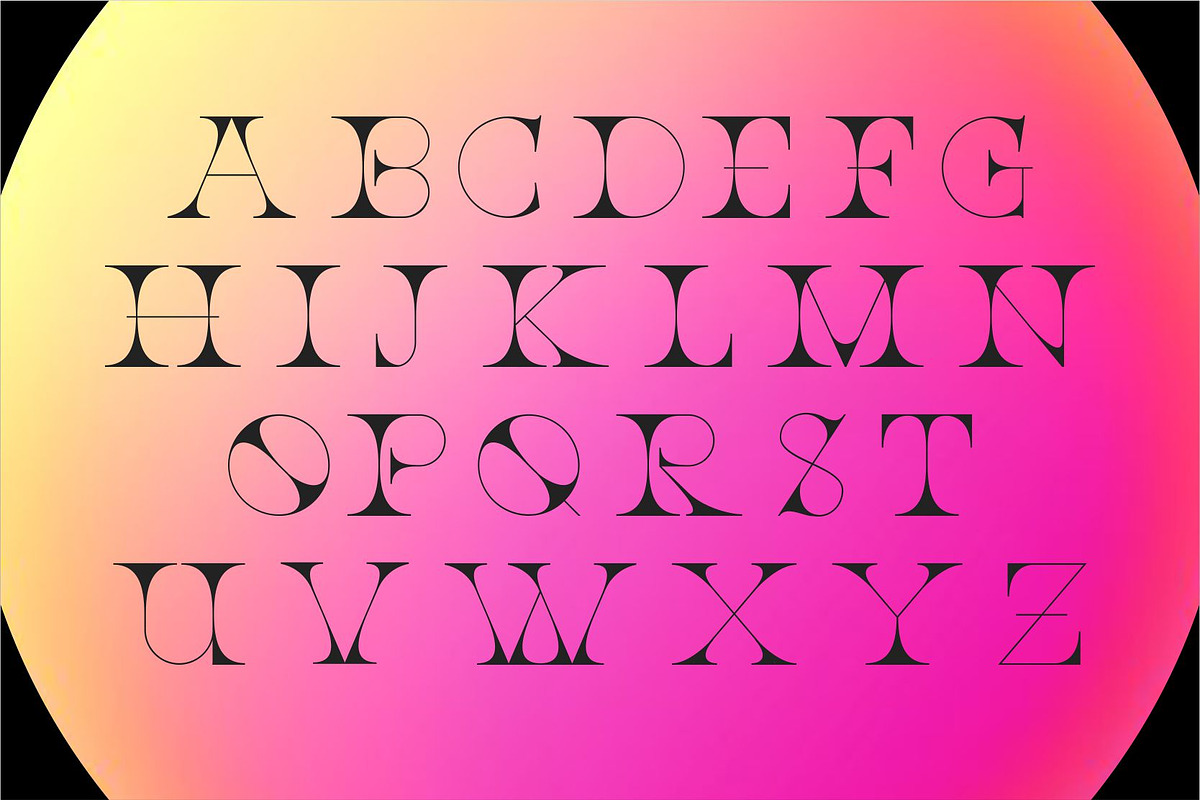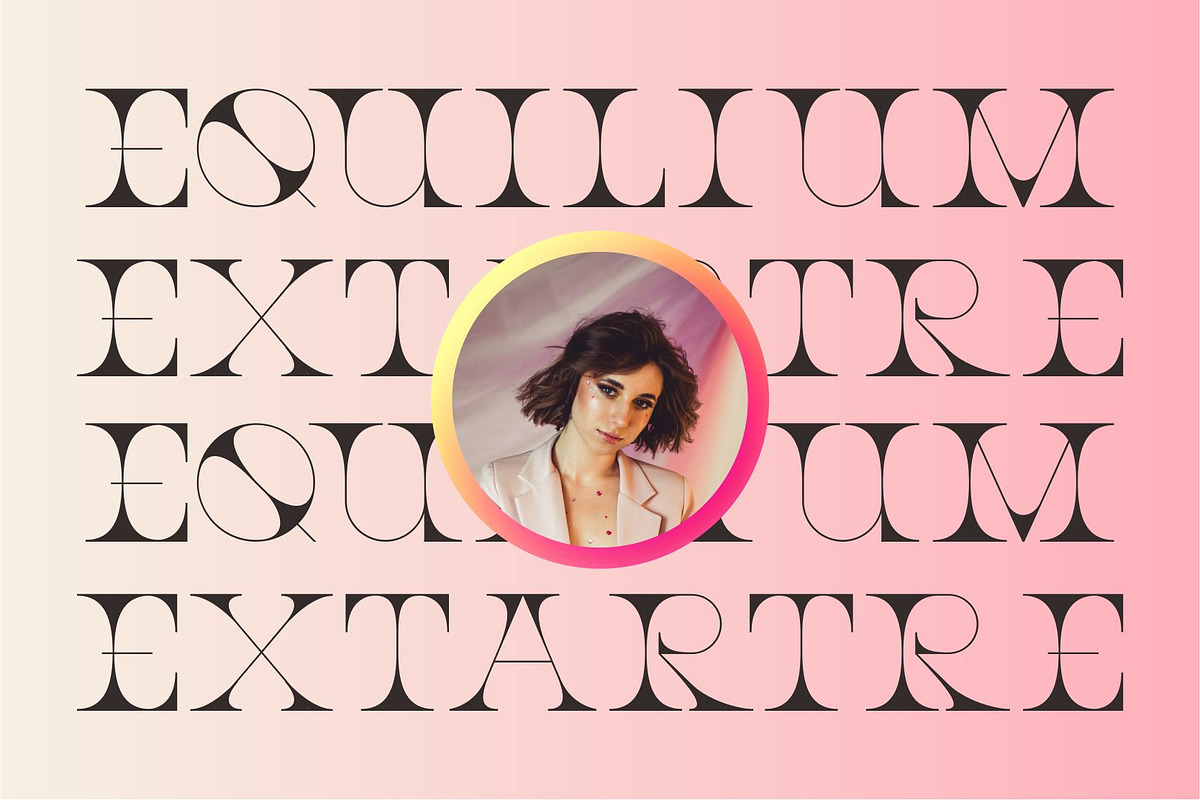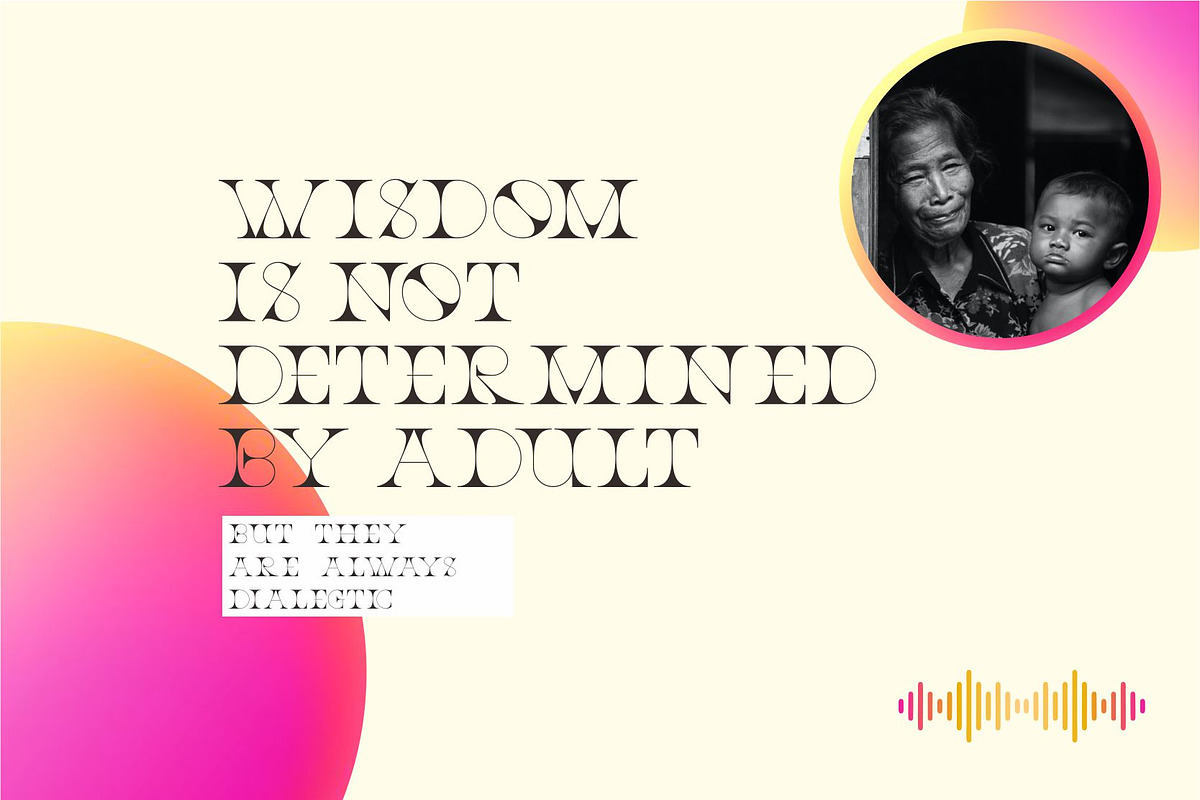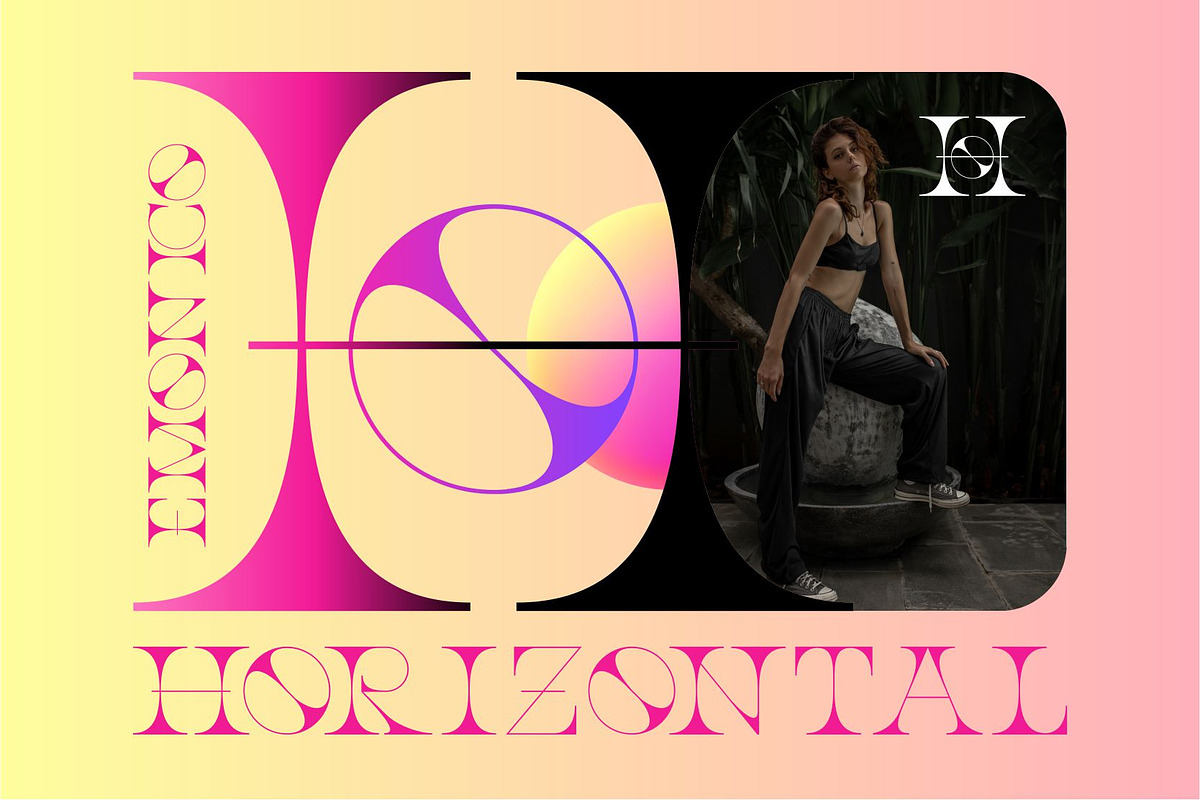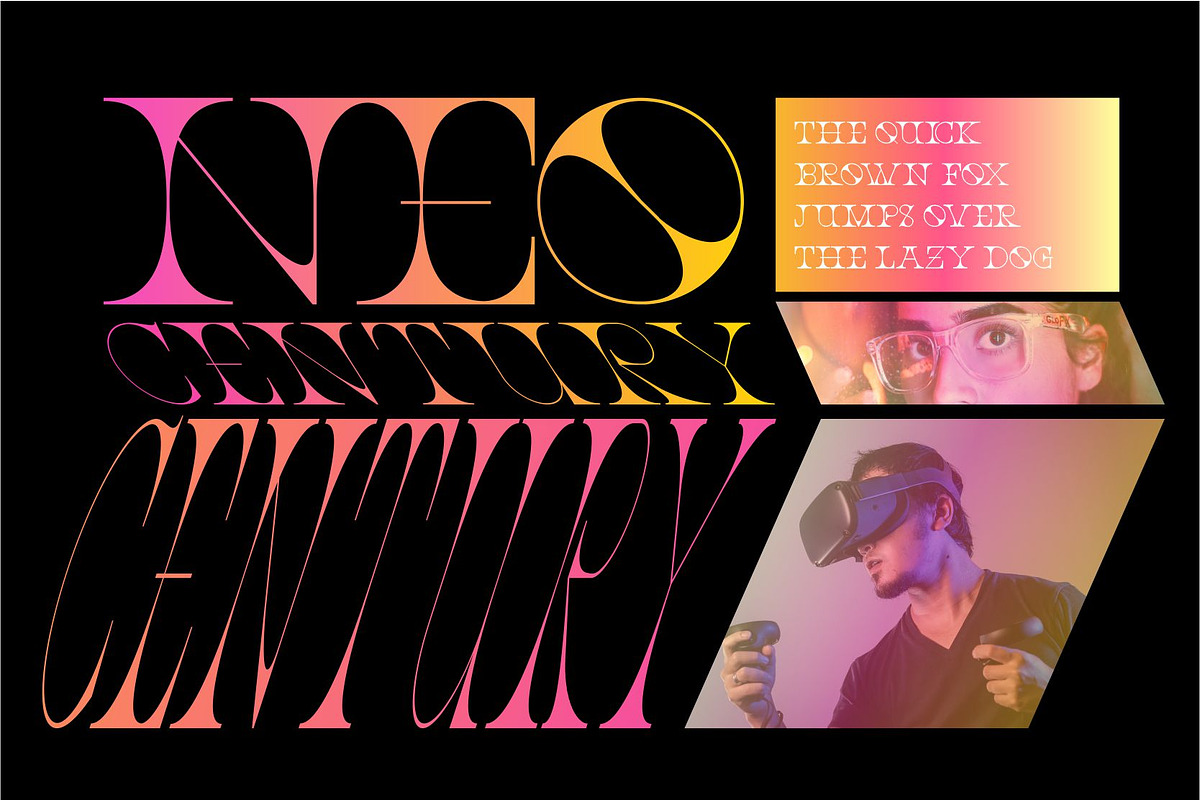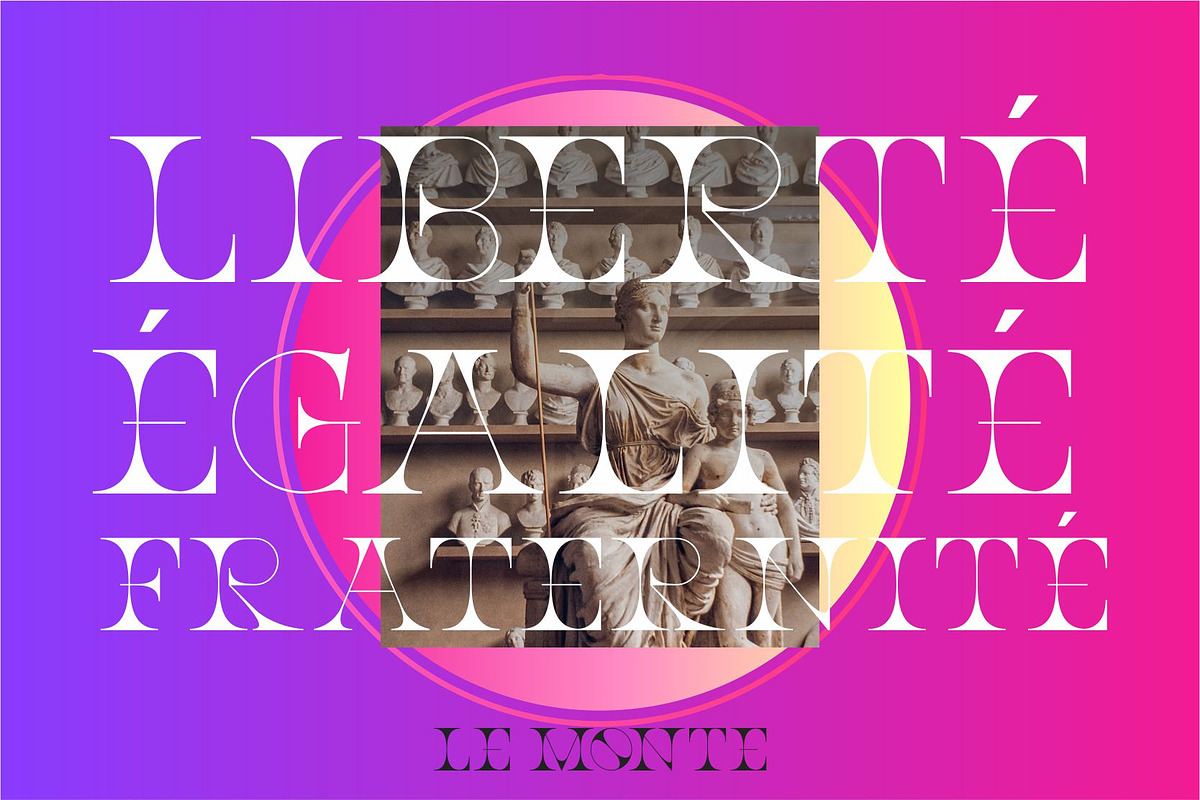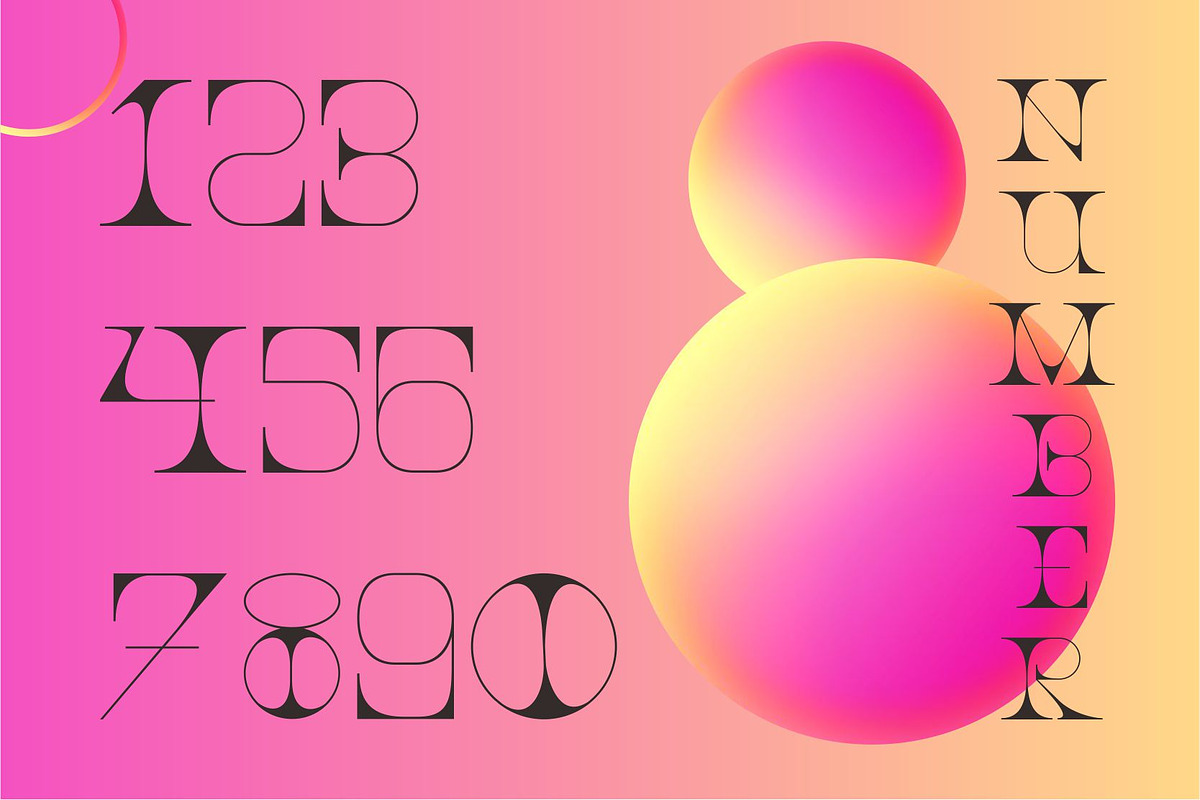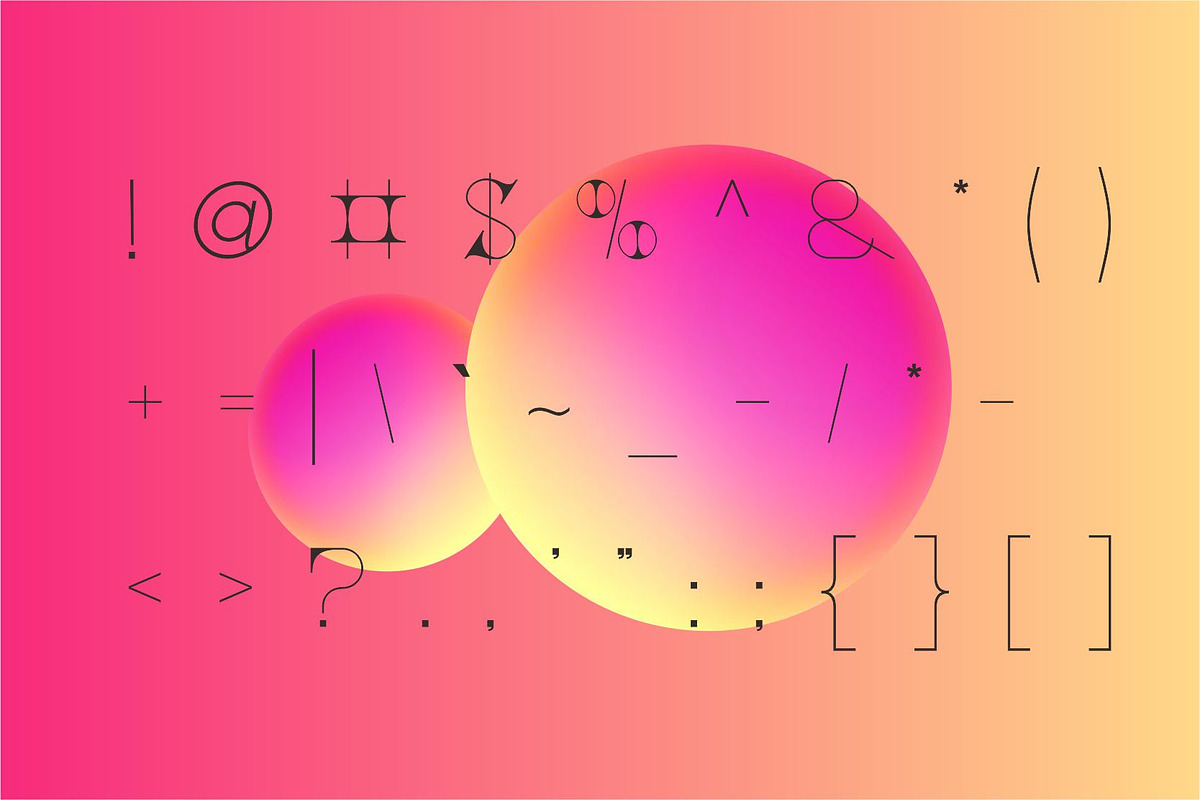
Le Monte | Serif Display
Le Monte fonts includes uppercase letters, numerals, a large range of punctuation. Serif font with modern display style. Created for poster, web design, branding, illustrations, badges and some other works.